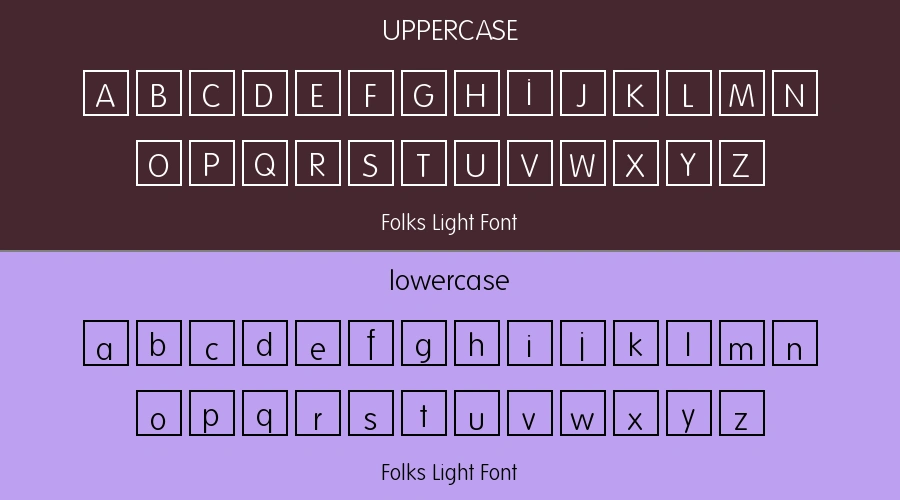
About Folks Light Font
Designed with precision, Folks Light Font merges flowing forms with technical precision in every character. This versatility makes it particularly effective for legal documents, where consistency and visual authority directly impact communication quality. Each letterform demonstrates meticulous craftsmanship.
Technical excellence shines through elements like convex bowls and language support, enhancing typographic versatility. In running text settings, Folks Light Font proves its worth through superior kerning accuracy. The thoughtful execution of joint construction and artistic merit ensures professional results.